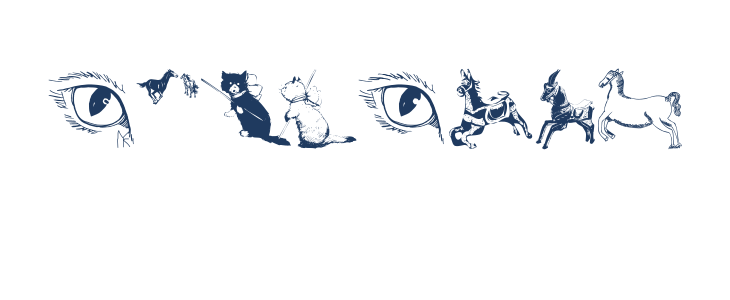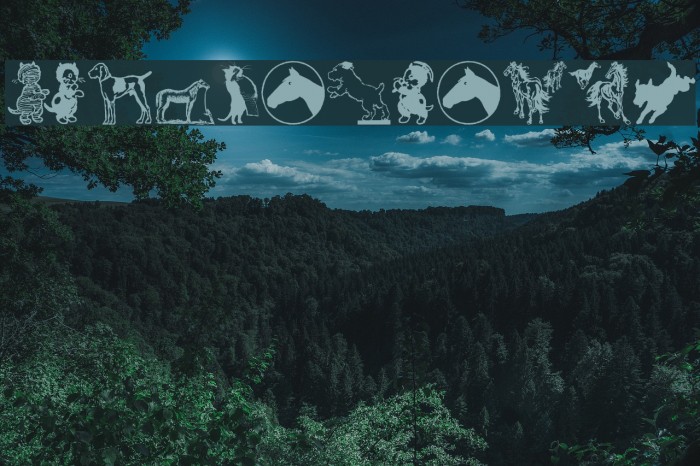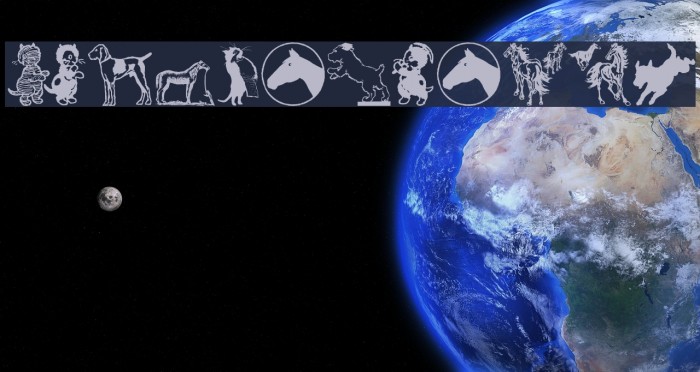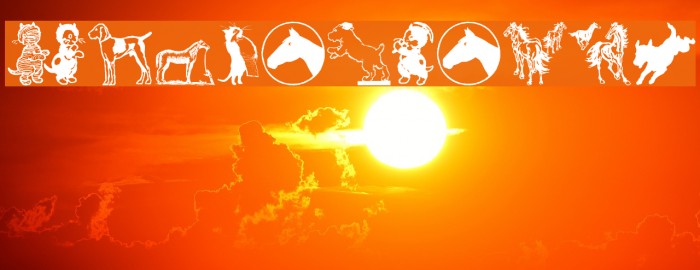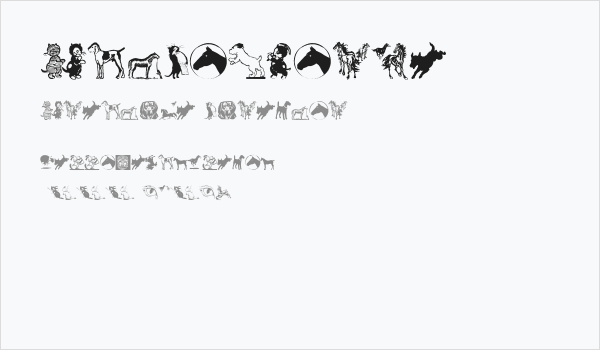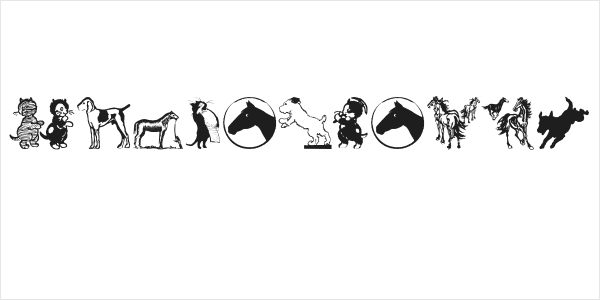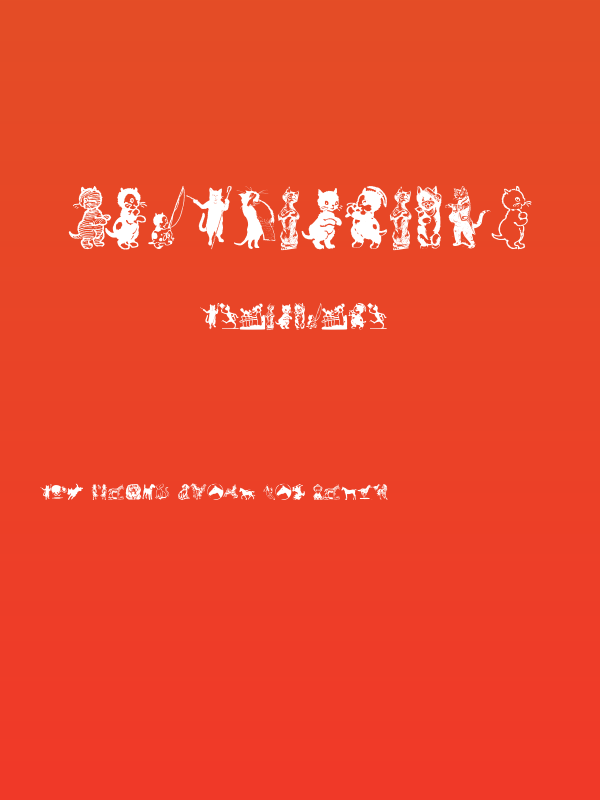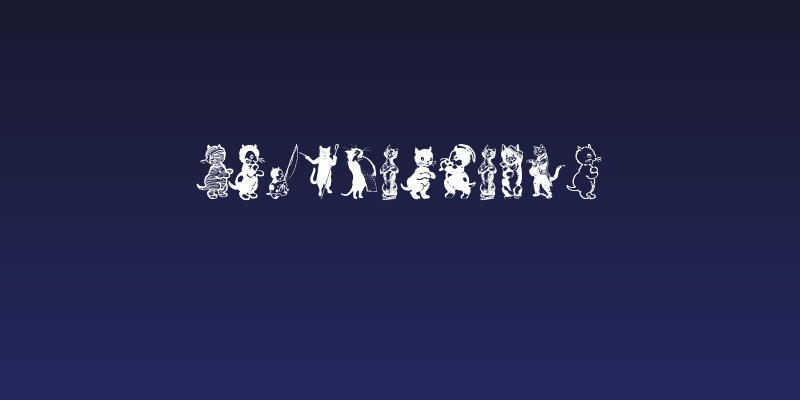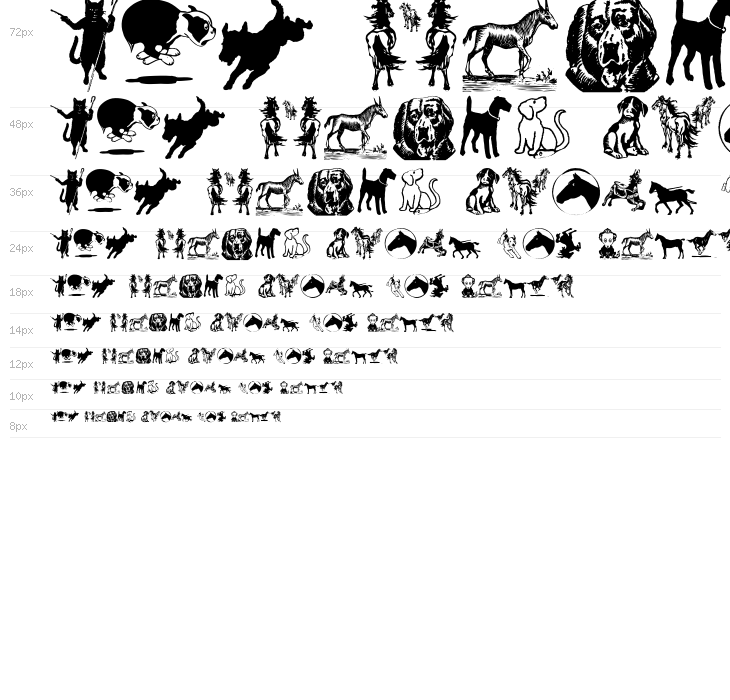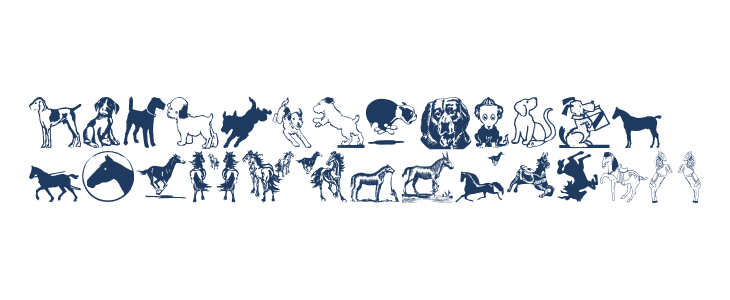
CatDogHorse Font
CatDogHorse Description
| Overall Style | Decorative, Playful, Cartoonish |
| Use Case | Logos, Decorative headlines, Themed graphics, Scrapbooking |
| Proposed Projects | ChildrenΓ’β¬β’s books, playful posters, pet-related branding, educational materials, greeting cards. |